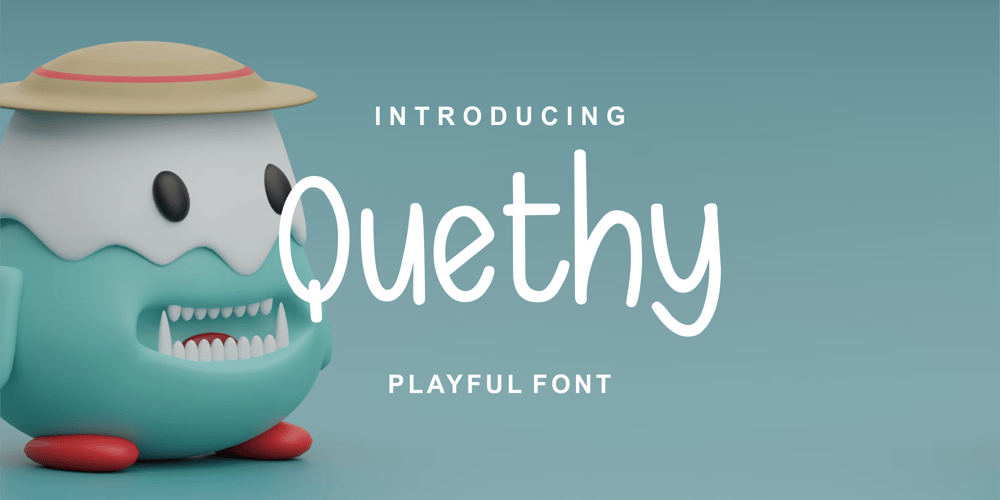
Quethy Font Family was designed by Zamjump and published by Zamjump. Quethy contains 1 styles and family package options. Quethy is a playful font that can be applied to many of your precious designs. It’s very simple handwritten and has an elegant style that makes this font a lot of fun.Quethy has a characteristic that is handwriting with a simple pen. You can use it for posters, titles, greeting cards, packaging, invitations and more.Included :- Multi-language